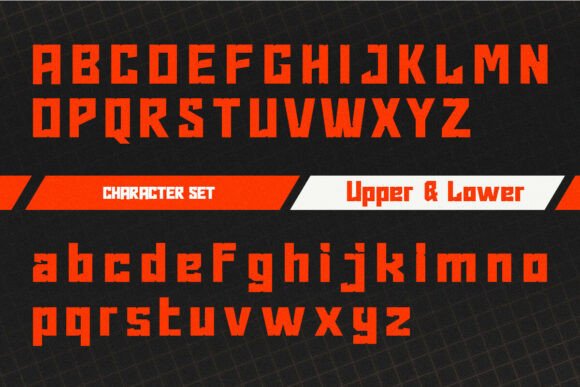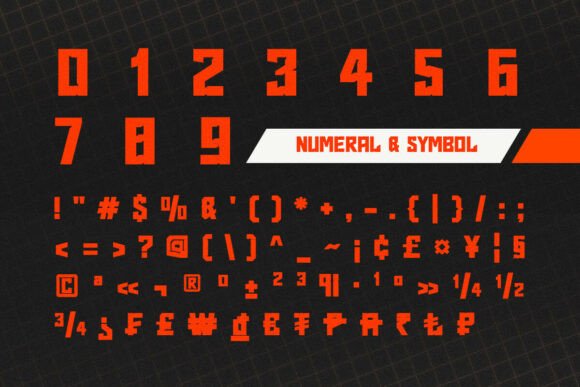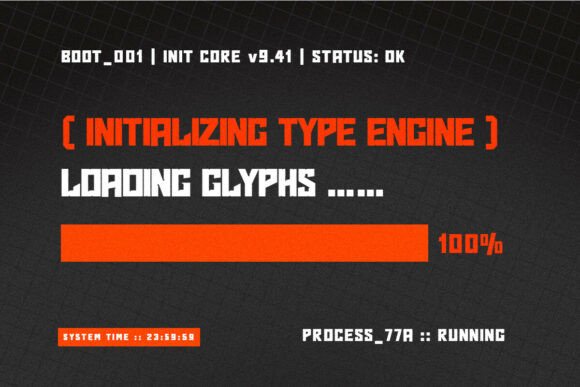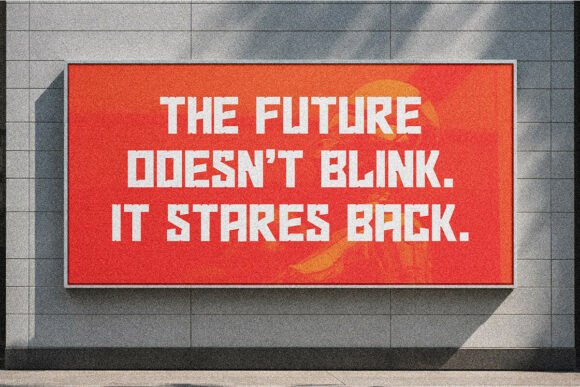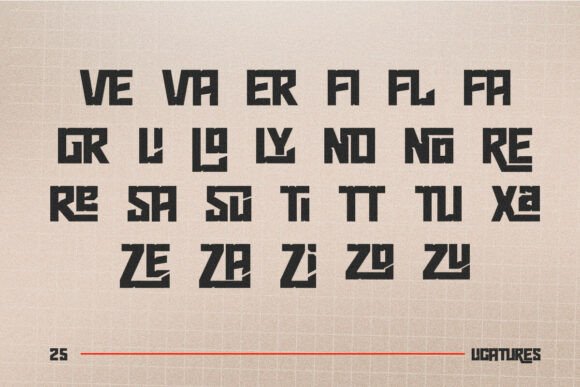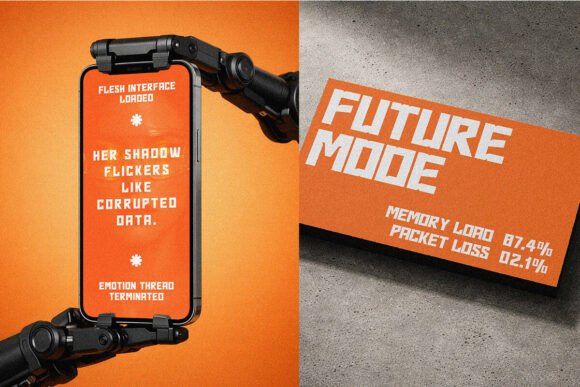
Introduction to Norezo Font
Norezo is a futuristic display font designed to deliver a sleek, modern, and high-tech visual impact.
Featuring sharp geometric shapes and clean letter structures, this font captures the spirit of innovation and forward-thinking design, making it ideal for contemporary creative projects Norezo comes in Regular and Oblique styles, allowing designers to create both stable and dynamic compositions.
Key Features of Norezo Font
Why Choose Norezo Font?